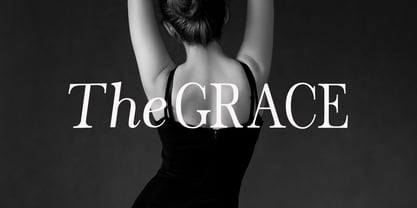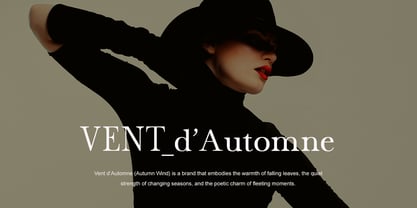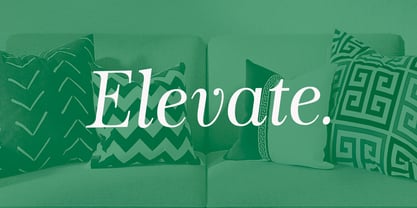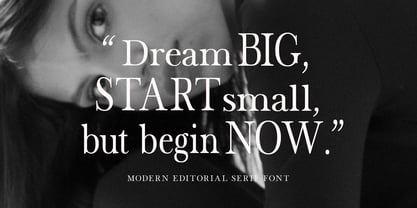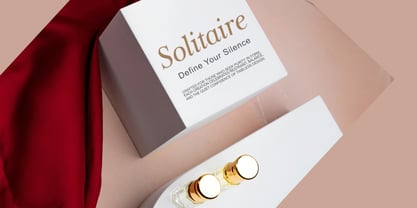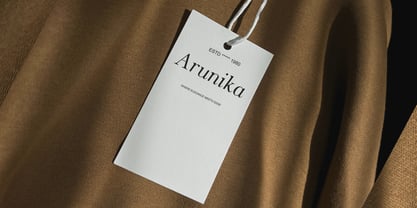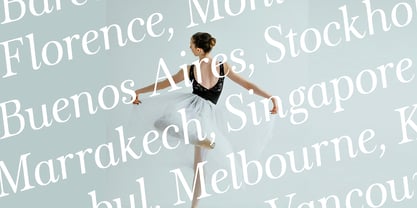
The Stripes Editorial
by Stripes Studio
The The Stripes Editorial Font Family was designed by Yur Lis and published by Stripes Studio. The Stripes Editorial contains 117 styles and family package options. More about this family
This serif typeface combines timeless sophistication with modern flexibility, featuring four expressive styles — Regular, Italic, Scale Italic, and Slant. Each style is designed to bring character, clarity, and elegance to both print and digital compositions. Regular: Balanced and refined, ideal for paragraphs and editorial layouts. Italic: Elegant and expressive, perfect for emphasis or poetic tones. Scale Italic: A uniquely proportioned slant with artistic precision and flow. Slant: Clean and geometric, adding a sense of motion and modernity. With subtle serif detailing and graceful contrast, this font stands out for its luxurious, readable, and professional aesthetic — ideal for branding, publishing, and timeless design projects.
Designers: Yur Lis
Foundry: Stripes Studio